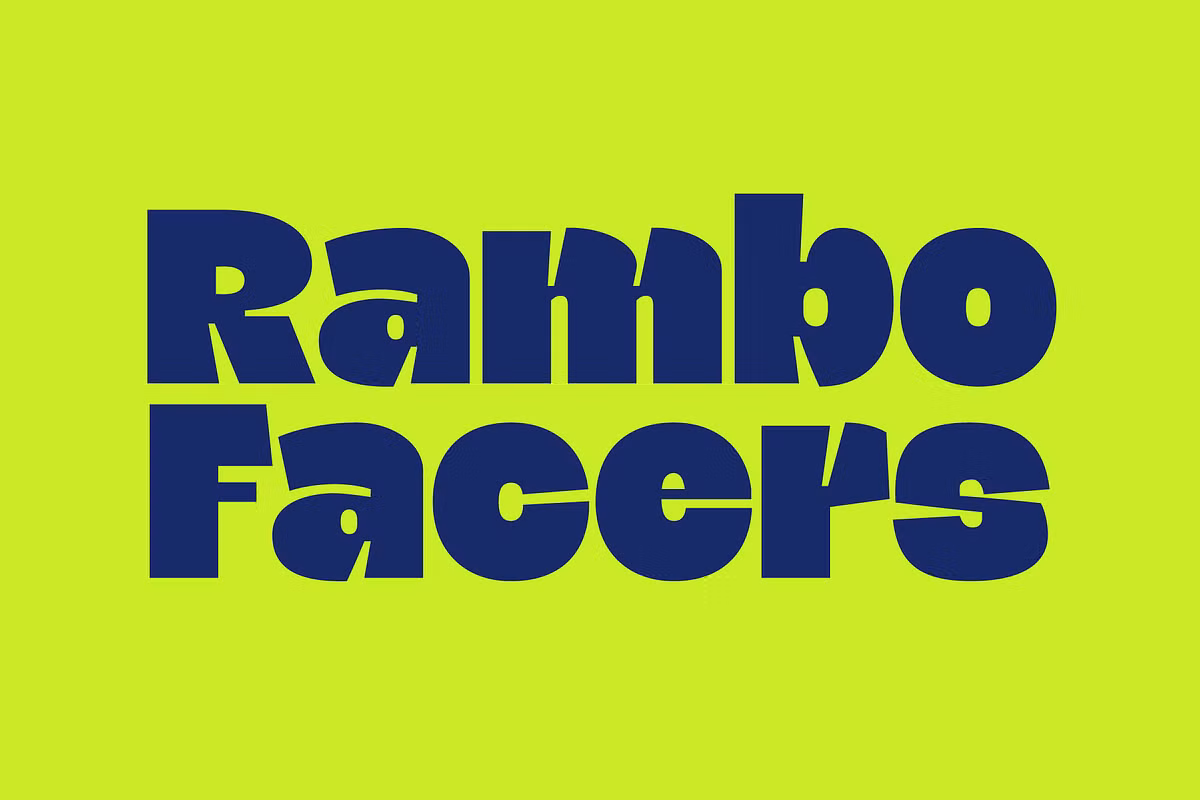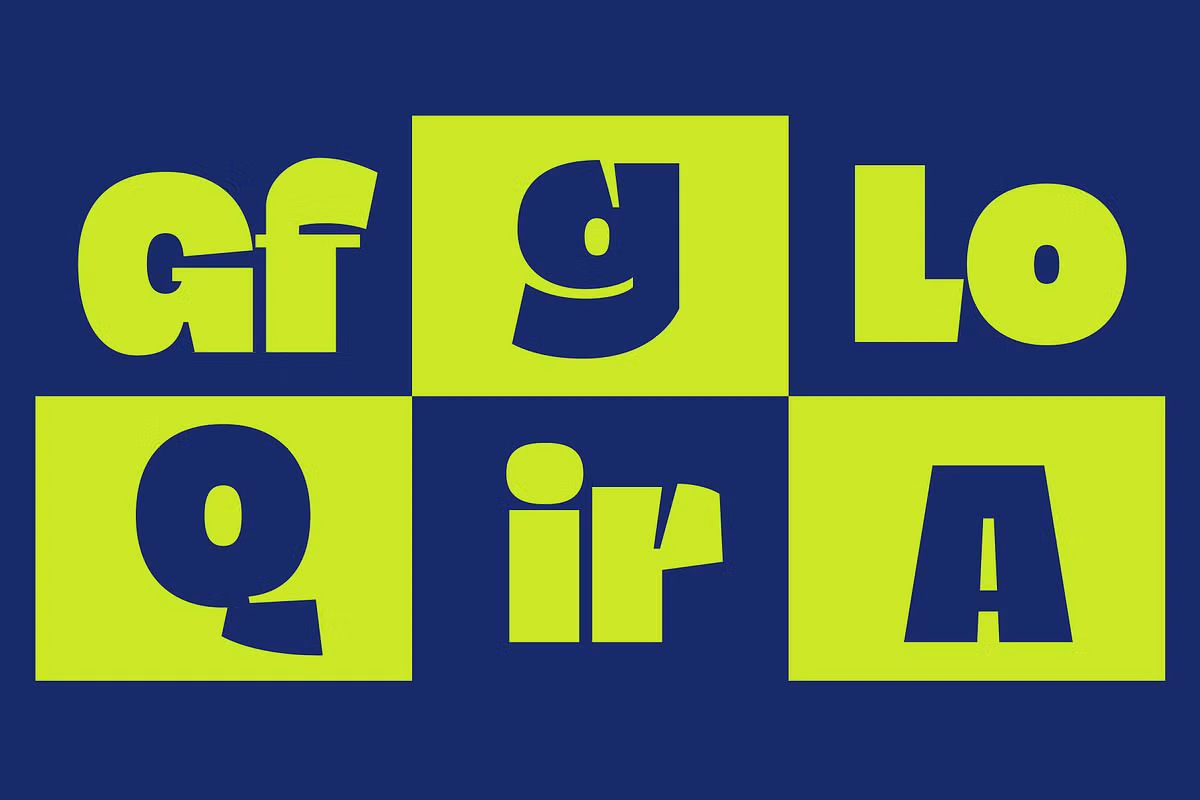
Blogh: Unique Fat and Quirky Display Font for Eye-Catching Headlines
Typography relies on the font. The right font can change the look of a design. Blogh is an quirky display font. Blogh stands out in any setting. Blogh has the weight and the sturdy letterforms. Blogh features the inktrap. Blogh works well for the headlines and the titles that need attention. I have used Blogh for headings. This article examines the features of Blogh, the design style of Blogh, the use cases of Blogh and more.
Design Style of Blogh
The design of the Blogh font is playful and strong. The Blogh font works well for people who want to stand out. The heavy weight of the Blogh font gives the text a look. Makes the text catch the eye. The quirky parts of the Blogh font add a feel and fit creative projects.
One of the features of Blogh is the artificial inktrap. The extreme artificial inktrap lets the font stay clear and easy to read when the font is big. The clarity matters for headlines. The extreme artificial inktrap cuts down the noise that can happen with letters. The extreme artificial inktrap keeps the message clear. I find the extreme artificial inktrap helps the font stay clear.
Characteristics of Blogh
I notice that Blogh has letterforms that show confidence. The unique shapes and curves of Blogh’s characters give Blogh a personality. I see each letter, in Blogh made with care so Blogh fits easily into the design contexts. I also see that Blogh includes a range of characters so Blogh works for the languages and purposes.
Use Cases for Blogh
When I use Blogh the options are endless. Here are some main ways the font Blogh shines:
- Headlines and Titles: Blogh helps the headlines and titles stand out. When creators design a magazine cover, a website header or promotional material Blogh ensures that the headlines and titles are noticeable.
- Posters and Flyers: I think the quirky feel of Blogh makes Blogh a good fit for event posters and flyers. I want the posters to get attention.
- Branding: If you are looking to build an friendly brand identity I recommend Blogh. Blogh can be the element in the logo and the marketing materials. Blogh works.
- Social Media Graphics: The social media space is competitive. I notice that using a font like Blogh helps posts catch attention and keep viewers interested.
Pairing Suggestions for Blogh
I find that choosing the right font pairings makes the design look better. Here are some font pairings that work well with Blogh:
- Sans-serif Fonts: I like to pair Blogh with a clean sans-serif font, like Arial or Helvetica. Sans-serif Fonts give Blogh a feel. The simplicity of Sans-serif Fonts balances the heaviness of Blogh. Makes a contrast.
- Serif Fonts: I find that pairing Blogh with a serif font such as Times New Roman or Georgia gives the feel. Serif fonts work well for invitations and for branding. Try using serif fonts.
- Other Display Fonts: If you are feeling adventurous try pairing Blogh with another display font. I pair Blogh with a fun display font when I want something. Make sure the two display fonts complement each other and do not clash. Keep the design balanced and harmonious.
In short Blogh is an quirky display font that adds life and character to any design. Blogh has the weight the letters and the strong ink trap that make Blogh an excellent choice for headlines and titles. Blogh works in the situations pairs, with the other fonts and has the clear license. Blogh can lift your design projects. If you work on branding, advertising or creative content Blogh will leave a lasting impression.